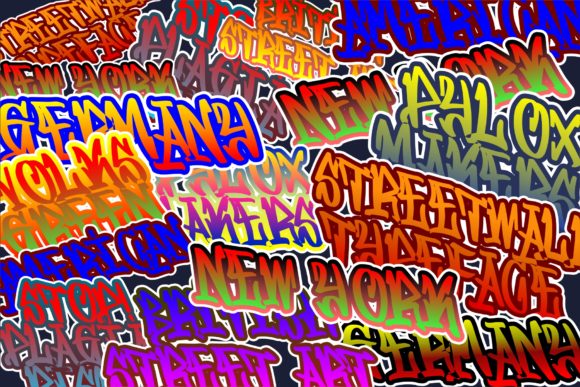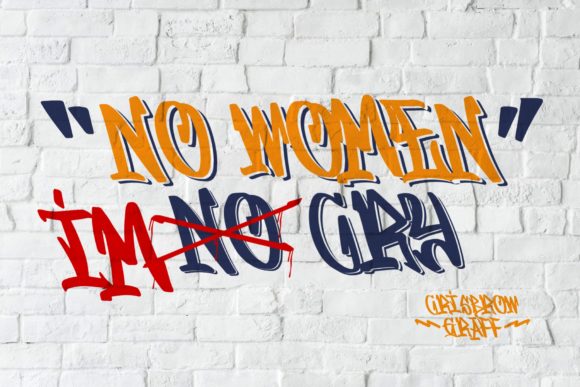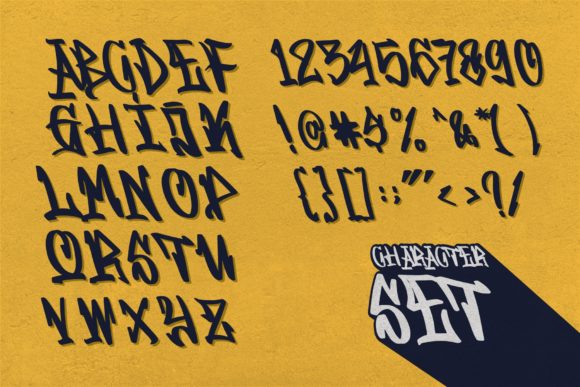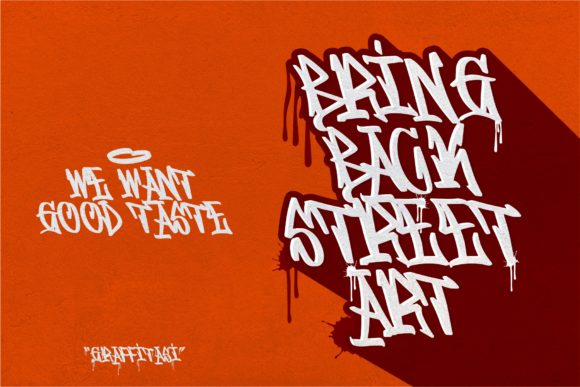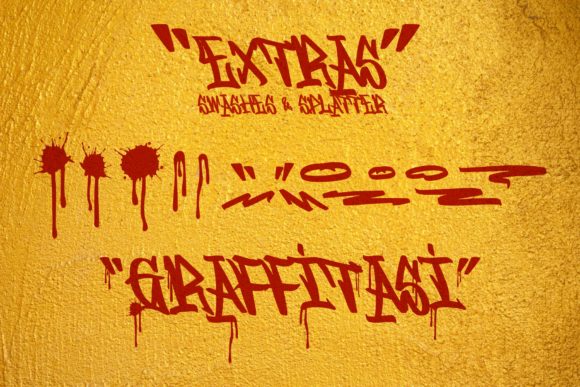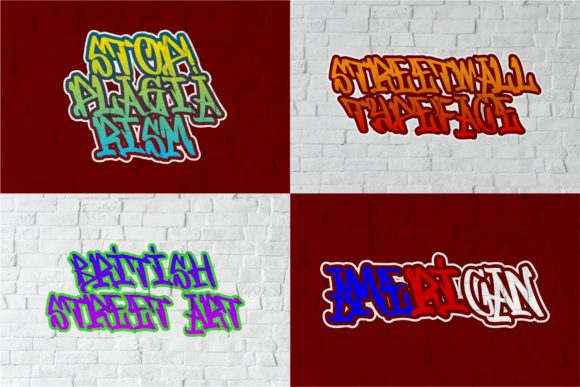
Introduction to Graffitasi Font
The Graffitasi is an unique graffiti font.
It was inspired from street writings with a high artistic value This street-like font can be used without committing vandalism, and is perfect for adding an unique and striking touch to your designs.
Graffitasi Font offers exceptional quality and versatility, making it a valuable addition to your design toolkit. Whether you’re creating for personal projects or commercial use, Graffitasi Font delivers professional results.